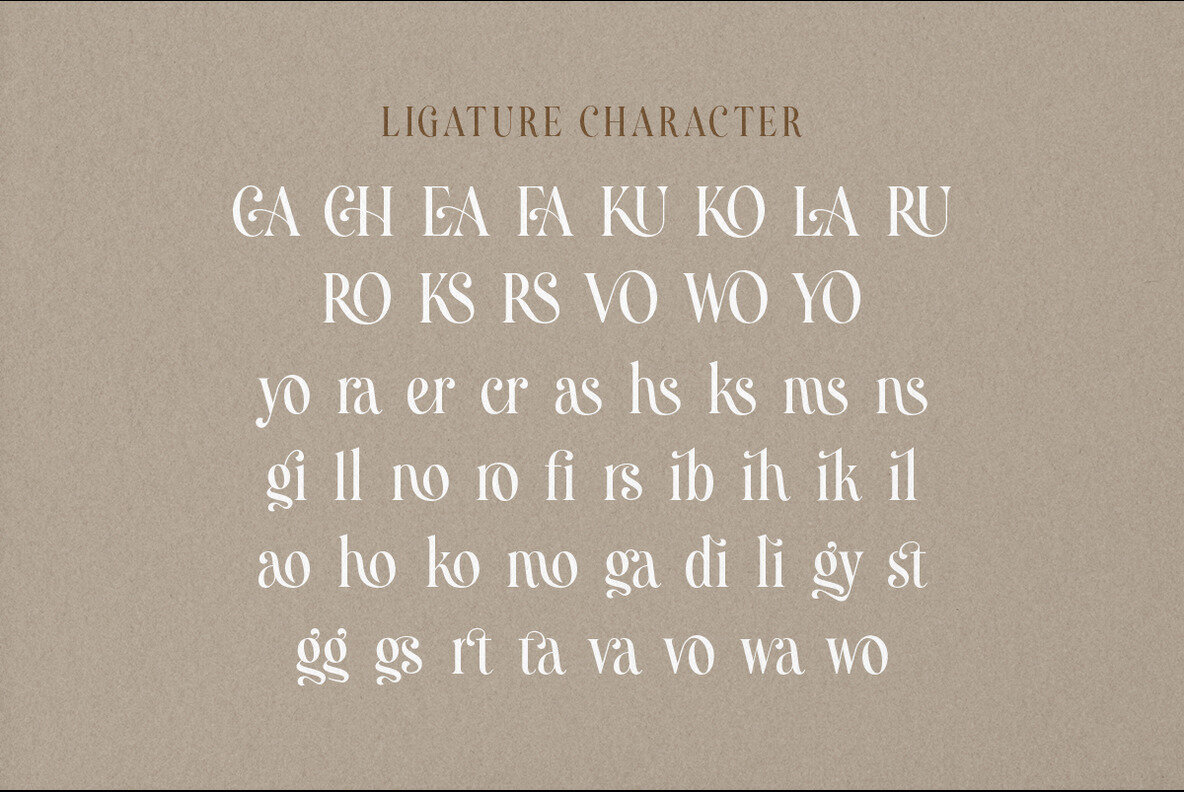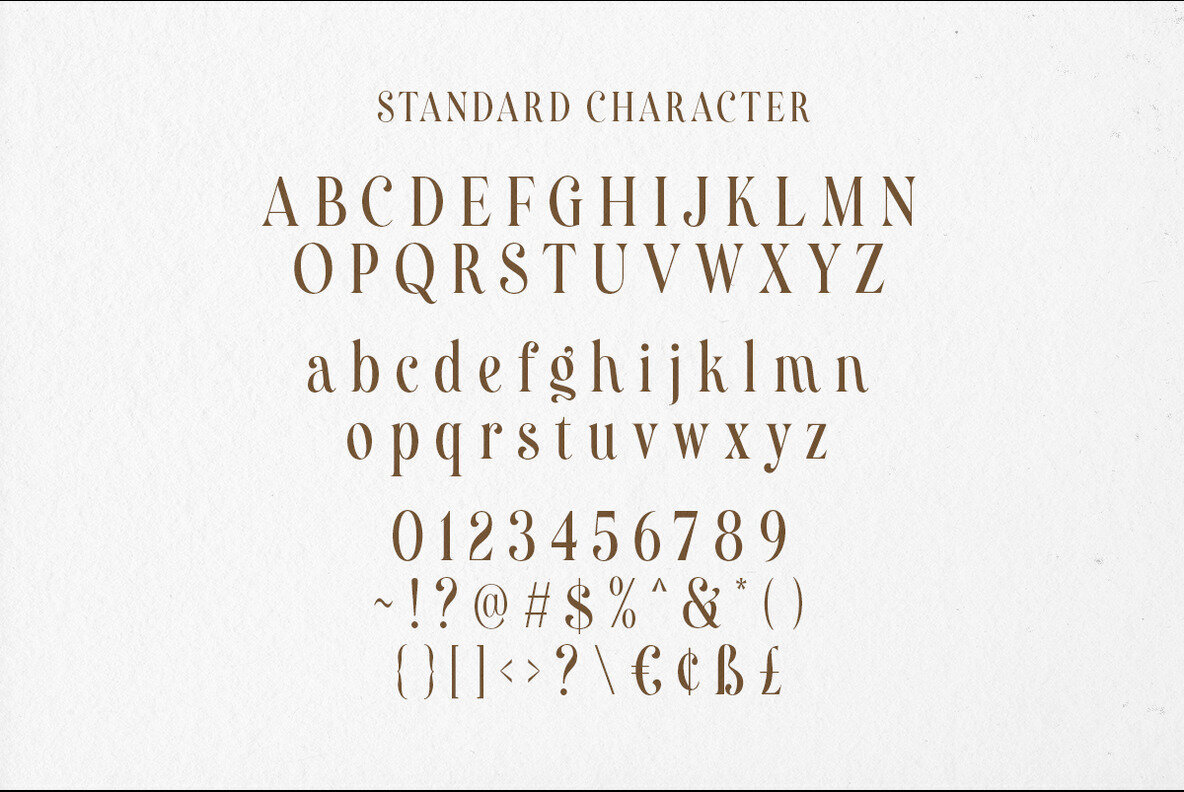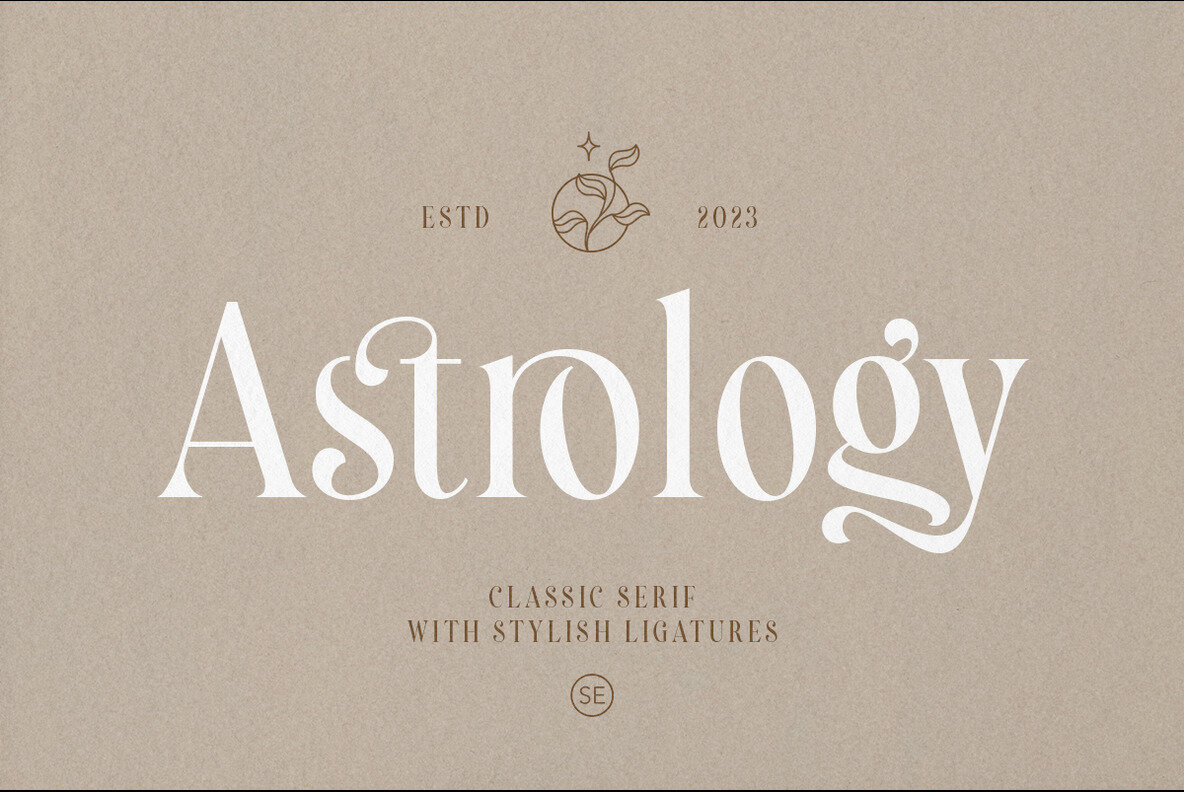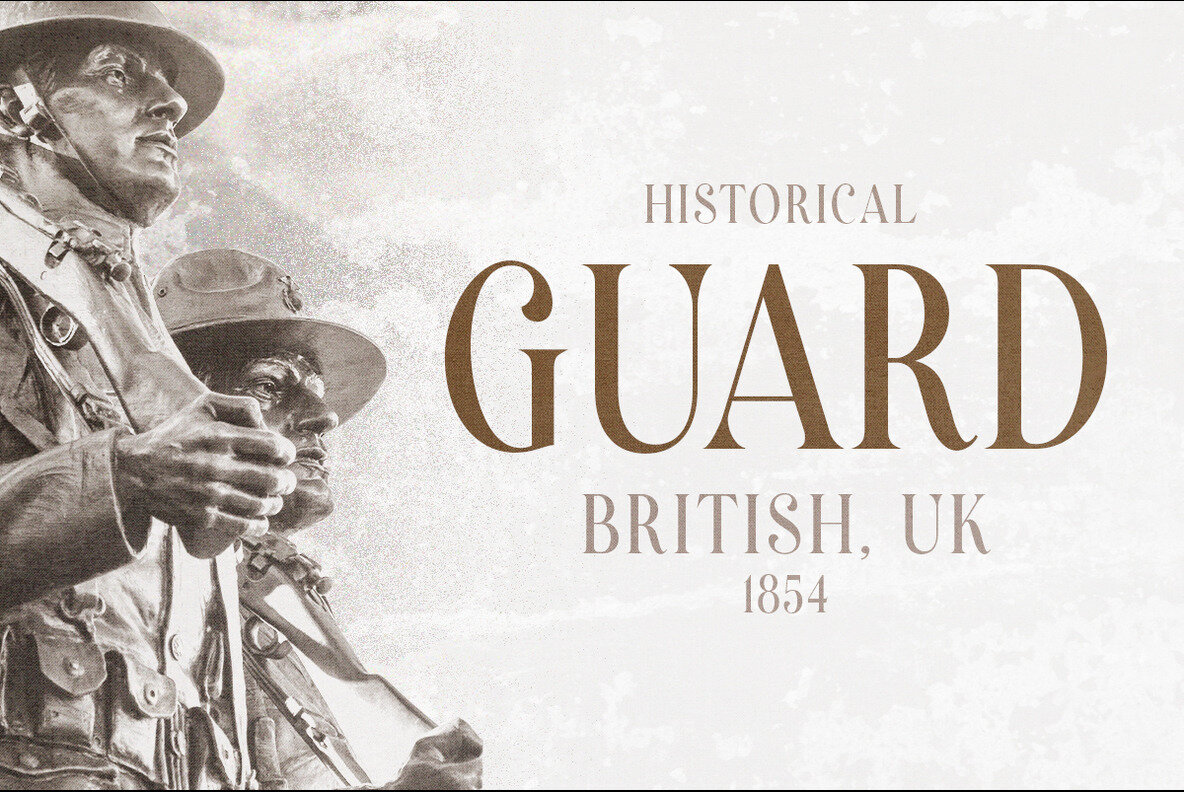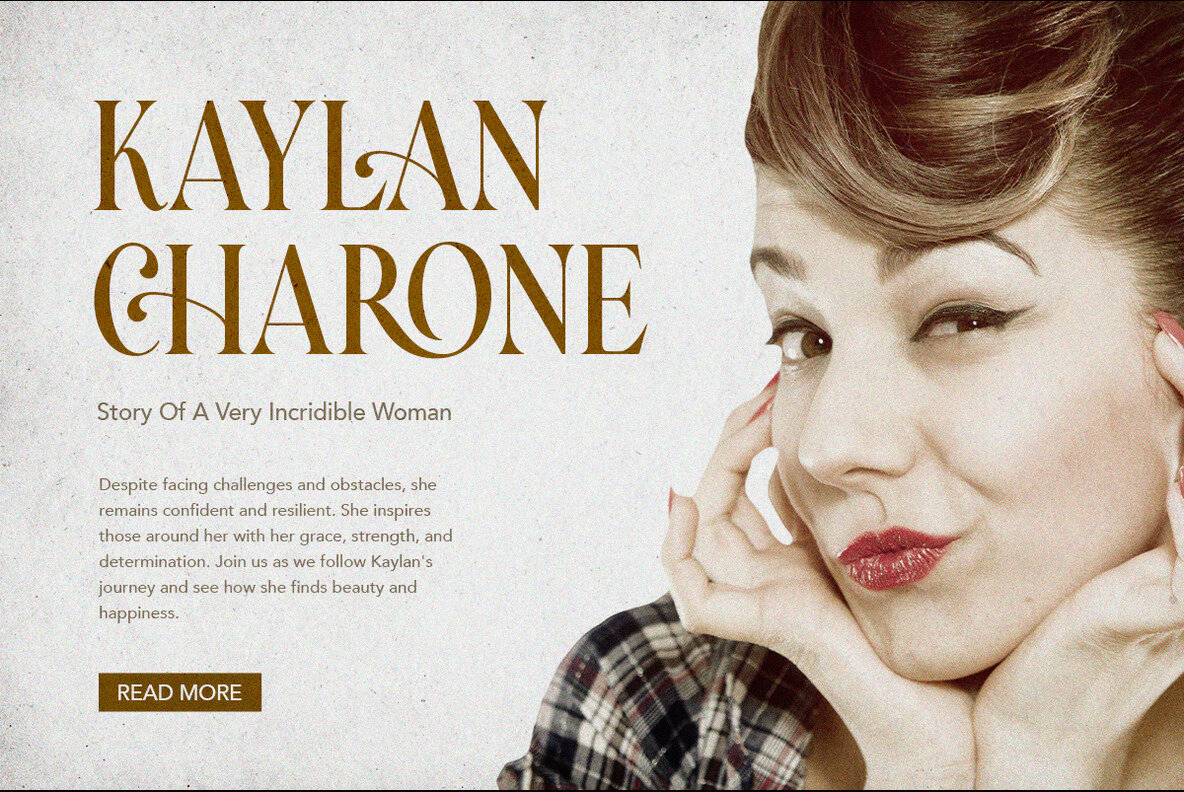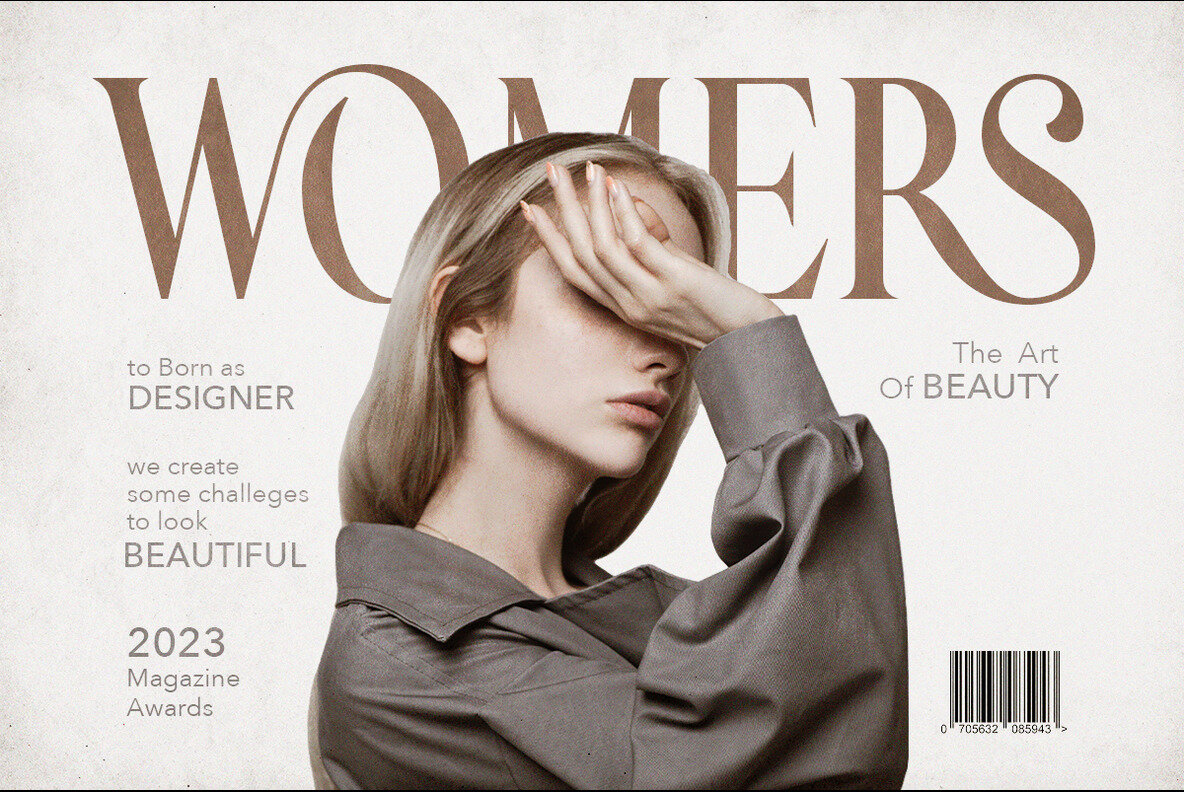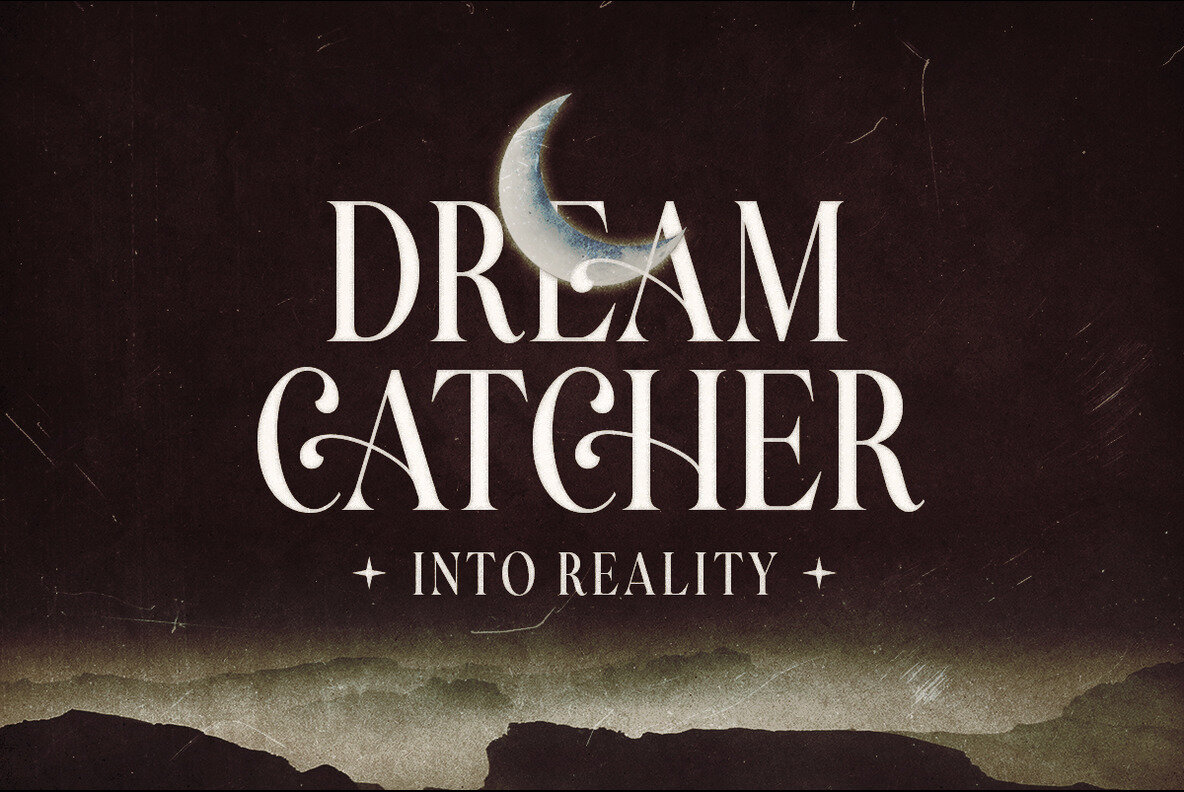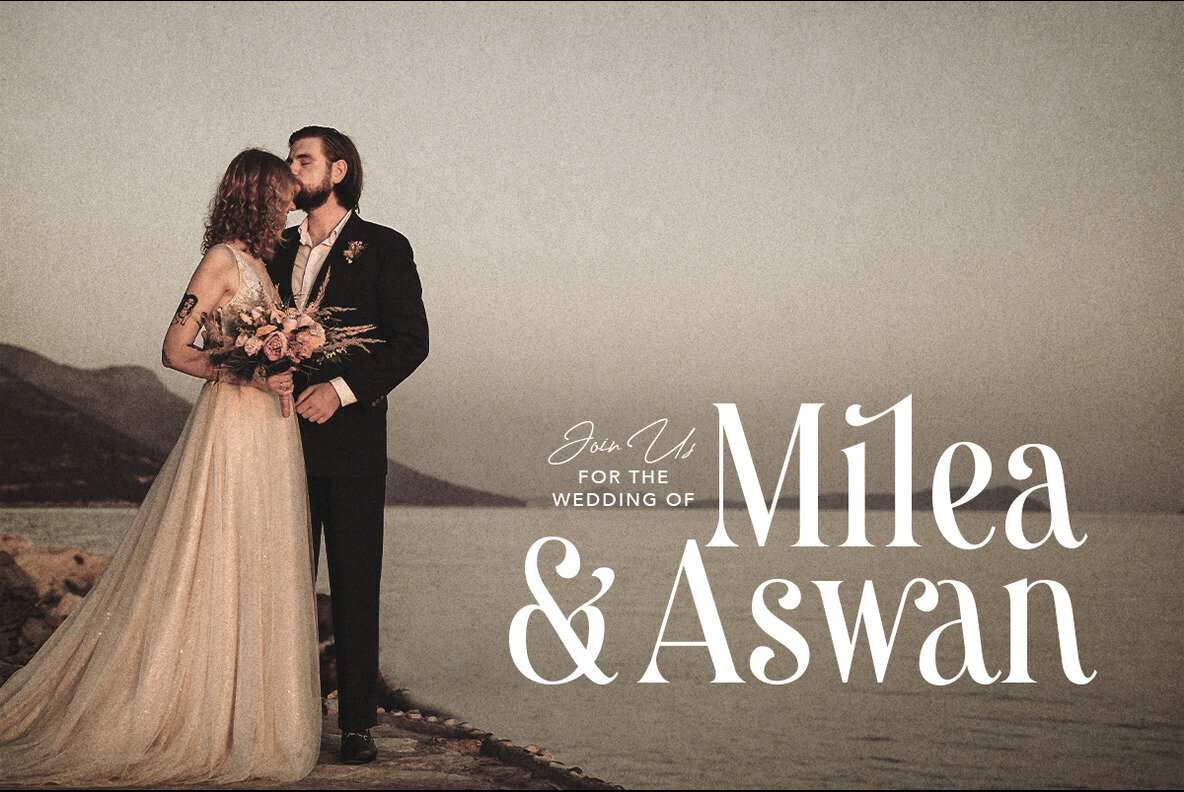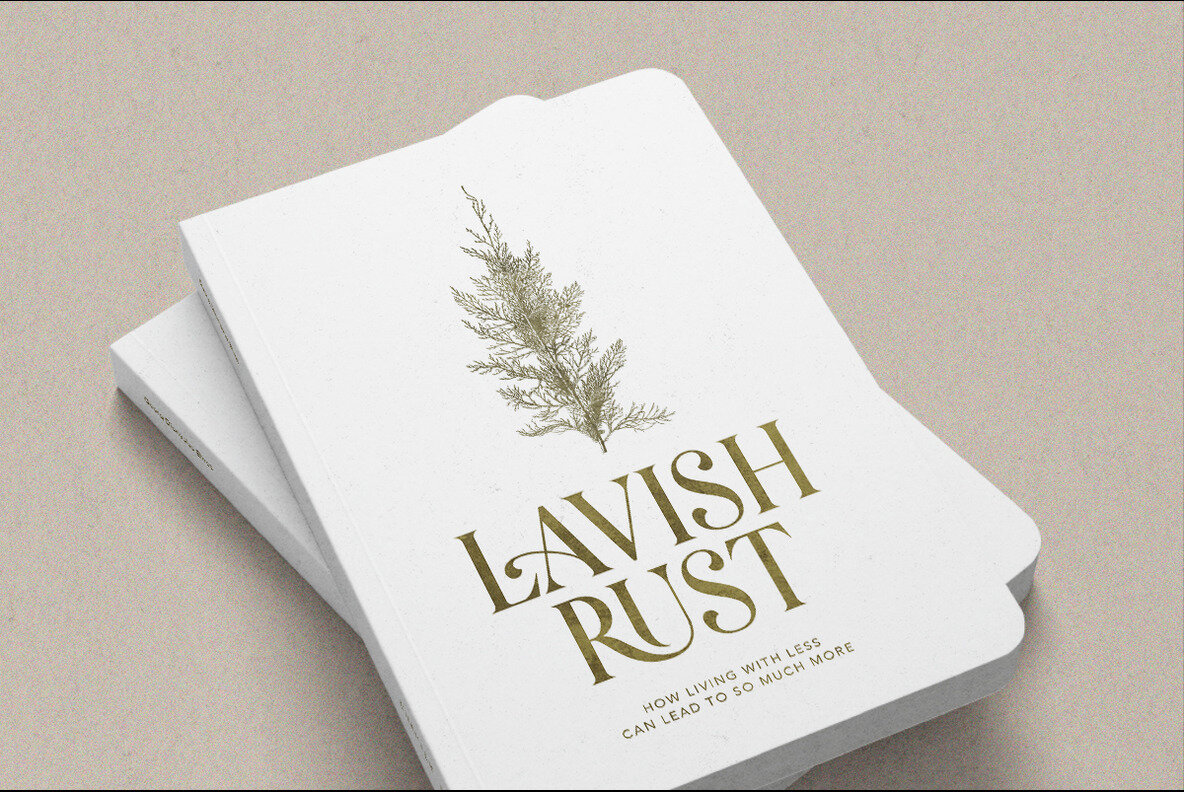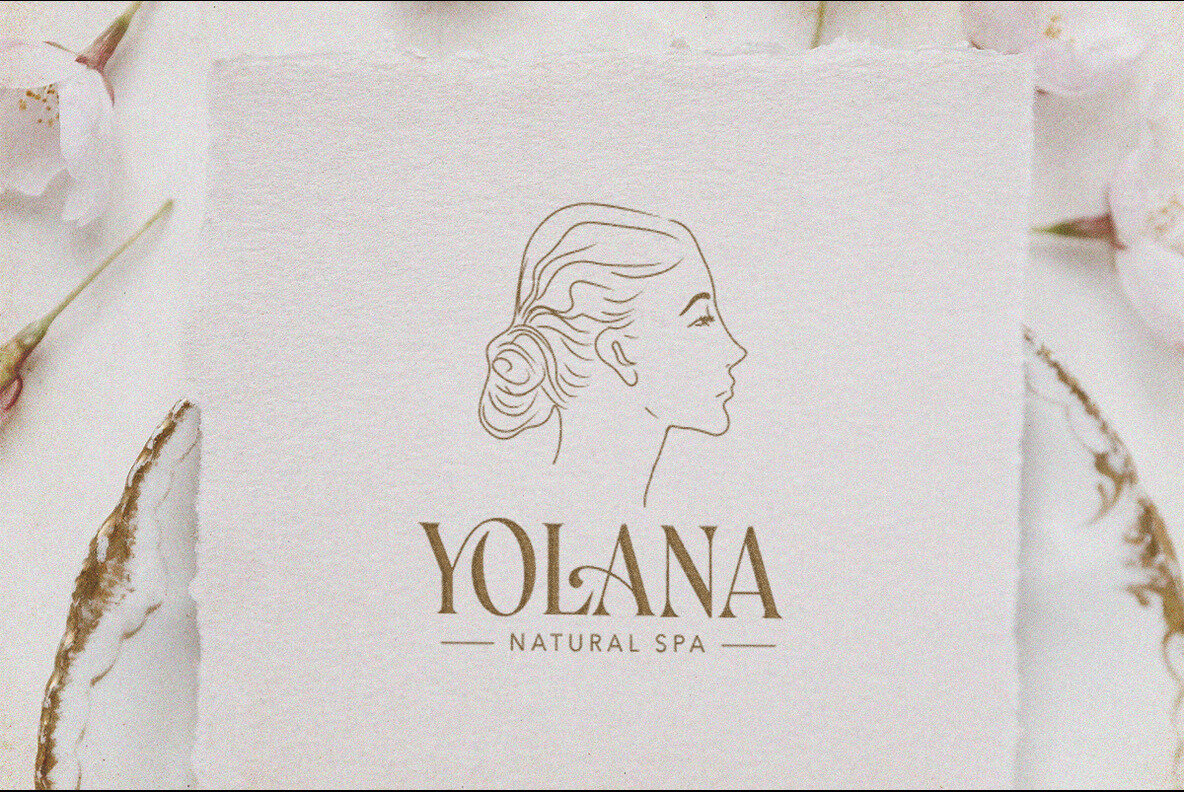
Astrology Font
Astrology Regular
Astrology is a timeless classic serif that exudes sophistication and refinement with stylish ligatures. This serif font is crafted with meticulous attention to detail, featuring graceful, elongated letterforms that project a sense of poise and elegance. The strokes are carefully balanced, creating a harmonious and pleasing visual rhythm, making them suitable for a variety of formal and prestigious applications such as logotype, wedding invitations, magazine, and more. One of the distinguishing features of this font is the presence of ligatures. Ligatures are special characters that combine two or more letters into a single, visually connected unit. They are meticulously designed to enhance the overall readability and aesthetics of the text, providing a seamless flow between the characters. Ligatures add a touch of sophistication and typographic finesse, making the font appear more polished and refined. You can see the list of the ligatures in previews below. Astrology also support multilingual!